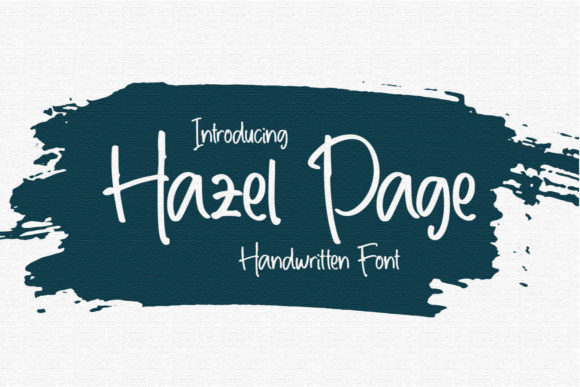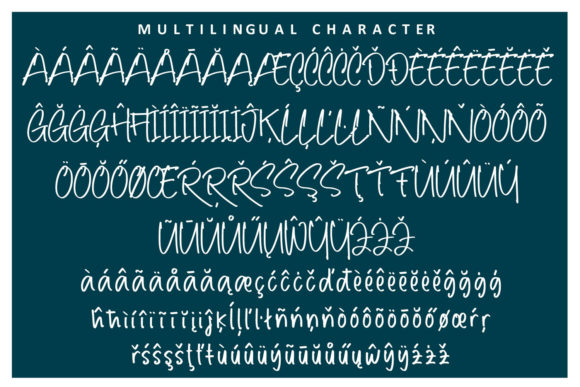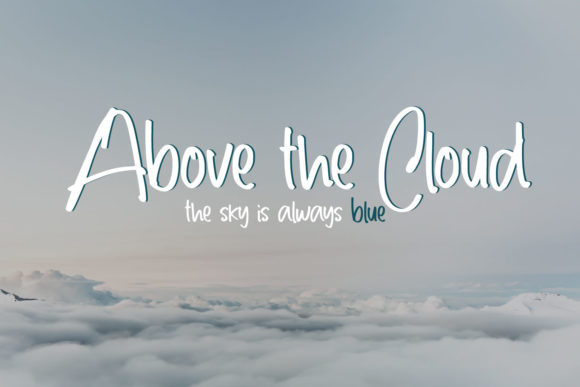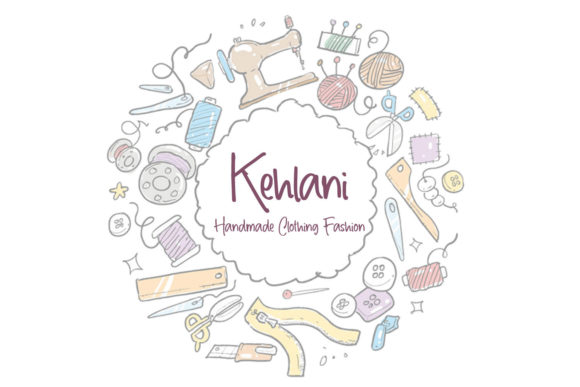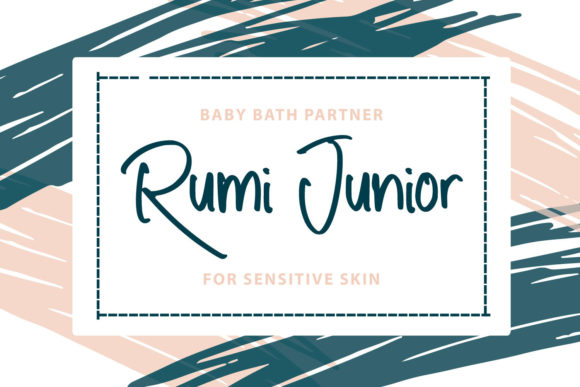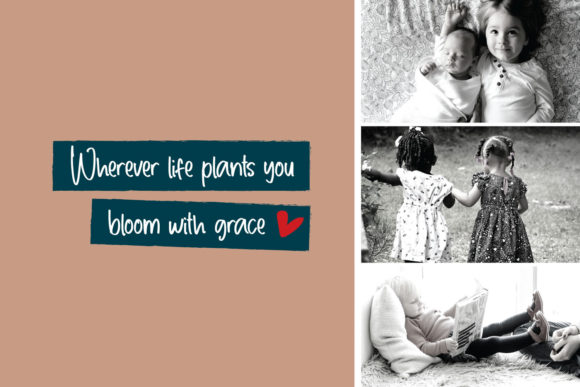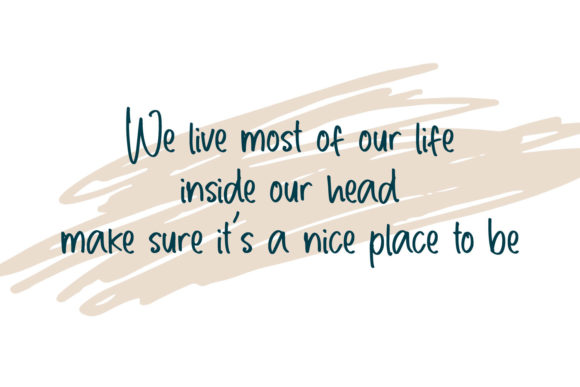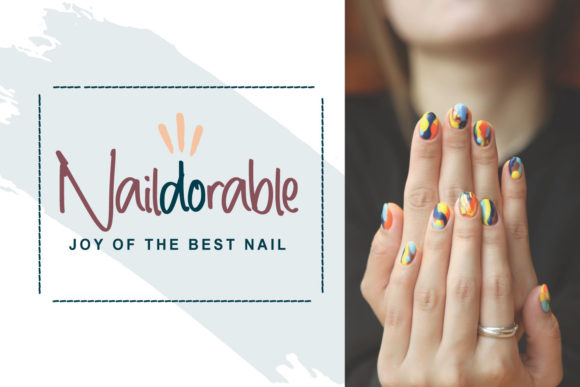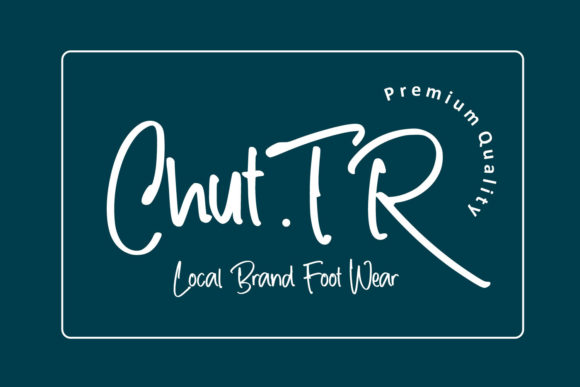
Hazel Page Font
About Hazel Page Font
Hazel Page is a casual handwritten font. Whatever the topic, this font will be a wonderful asset to your font library, as it has the potential to enhance any creation.